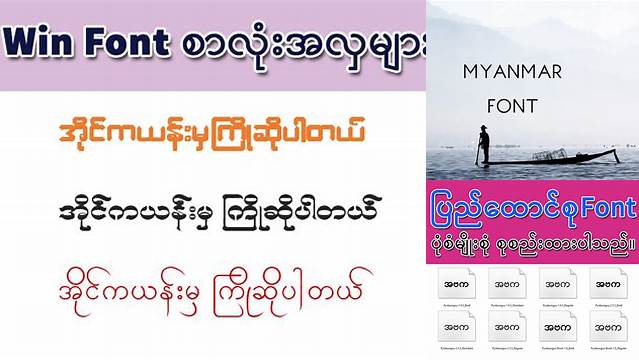
Myanmar Fonts For PC: Free Downloads
Hey guys! So you're looking to get some cool Myanmar fonts installed on your PC, and you want to do it for free? You've come to the right place! Downloading and installing Myanmar fonts on your computer can open up a whole new world of typing and design possibilities. Whether you're working on a document, creating some awesome graphics, or just want to chat with friends in your native script, having the right fonts makes all the difference. Let's dive into how you can find and get these fonts without spending a dime.
Understanding Myanmar Fonts and Their Importance
First off, what exactly are Myanmar fonts, and why are they so crucial for PC users? Myanmar, also known as Burma, has its own unique and beautiful script. However, standard computer operating systems often don't come with these specific fonts pre-installed. This means if you try to type in Burmese on a regular PC, you might see a bunch of jumbled characters or squares instead of the intended letters. It's super frustrating, right? This is where Myanmar fonts come in. They are specialized character sets designed to correctly render the Burmese alphabet on digital devices. Having these fonts installed ensures that your text appears as intended, making communication clear and preserving the visual integrity of the language. For anyone communicating in or about Myanmar, whether for business, personal use, or cultural preservation, having accessible and correct fonts is non-negotiable. They are the backbone of digital literacy and expression for the Burmese language. Without them, interacting with Burmese content online or creating content in Burmese becomes a significant hurdle. So, finding reliable sources for free downloads is key to unlocking this digital capability.
Exploring Different Types of Myanmar Fonts
When you start looking for Myanmar fonts, you'll quickly realize there isn't just one type. There are several different font families and encoding systems that have been developed over the years. Some of the most common ones you'll encounter are Zawgyi, MyMyanmar, and Padauk. Zawgyi has been around for a while and is widely used, though it has some historical encoding quirks. MyMyanmar is another popular choice, often designed for better compatibility and ease of use. Padauk is a more modern Unicode-compliant font that's gaining traction, especially for web use and cross-platform compatibility. Understanding these differences is important because a document typed in Zawgyi might not display correctly if someone views it on a system that only has MyMyanmar installed, and vice-versa, unless the system is specifically set up to handle them. Each font has its own aesthetic, too β some might be more traditional, while others offer a more contemporary look. When you're downloading free fonts, pay attention to which encoding system they use. This will save you a lot of headaches down the line, especially if you're collaborating with others or need your text to be universally readable. Itβs all about finding the right fit for your specific needs and ensuring your Burmese text looks exactly how you want it to.
Where to Find Free Myanmar Fonts Online
Tips for Choosing the Right Myanmar Font
With so many options out there, how do you pick the perfect Myanmar font for your PC? It really depends on what you'll be using it for. If you're writing casual messages to friends or posting on social media, you might prefer a font that's trendy and easy to read. For more formal documents, like academic papers or official correspondence, you'll want something that looks professional and adheres to established Burmese typographic standards. Consider the readability factor β some fonts are designed with clarity in mind, ensuring that each character is distinct and legible even at smaller sizes. If you're working on graphic design projects, you might look for fonts with unique styles or decorative elements that can add flair to your creations. Also, think about compatibility. If you share your work with others, especially online, choosing a Unicode-compliant font like Padauk is often the best bet, as it ensures your text will display correctly on most modern devices and platforms. Don't be afraid to download a few different options and try them out. See how they look in different applications and contexts. What looks good on one screen might not be ideal for another. Ultimately, the best font is the one that best serves your purpose and appeals to your aesthetic sense.
Step-by-Step Installation Guide for Windows Users
Let's break down the installation process into easy steps, guys. You've got your font file, say Zawgyi-One.ttf
. First, locate the file in your Downloads folder or wherever you saved it. Double-click Zawgyi-One.ttf
. A window will pop up showing you what the font looks like. See that button that says "Install"? Yep, just click that bad boy. Windows will then install the font. You'll see a progress bar, and then it's done. Boom! If you want to install multiple fonts at once, you can open the Fonts folder manually. Go to C:\Windows\Fonts
in File Explorer. Then, drag and drop all the .ttf or .otf files you want to install directly into this folder. Windows will automatically recognize and install them. It's that simple. For those of you rocking Windows 10 or 11 and wanting the font available for all users on the PC, right-click the font file and select "Install for all users." This is the best practice if you're the administrator. Once installed, open your word processor or design software. You should now be able to find your newly installed Myanmar font in the font dropdown menu. If it's not there, try closing and reopening the application. Sometimes a full system reboot is needed, but usually, an application restart is enough.
Verifying Your Myanmar Font Installation
So, how do you know if that Myanmar font you just installed is actually working correctly? The best way is to open up an application where you'll use it β think Microsoft Word, Google Docs, or even a graphics editor like Photoshop or GIMP. Once the application is open, go to the font selection menu. Scroll through the list and look for the name of the font you just installed. It should be there! Select it. Now, try typing something in Burmese. If the characters appear correctly and look like the script you expect, congratulations, your font is installed and working perfectly! If you're still seeing those dreaded squares or jumbled characters, something might have gone wrong. Double-check that you installed the correct font file and that it's compatible with your operating system. You might need to try installing it again, or perhaps try a different font altogether. Sometimes, especially with older fonts or specific encoding types, you might need specific software or settings enabled. But usually, a successful installation means you'll see those beautiful Burmese characters pop up as you type.
Troubleshooting Common Font Installation Issues
What if things don't go smoothly, guys? It happens! One common issue is the font not appearing in the application's font list even after installation. Usually, this is resolved by simply restarting the application. If that doesn't work, try restarting your entire computer. Another problem can be corrupted font files. If a font fails to install or looks weird after installation, try re-downloading it from a different source, assuming you've verified the source is reputable. Make sure you're downloading the correct file type (.ttf or .otf); sometimes, people mistakenly download programs that use fonts rather than the font files themselves. If you're having trouble with a specific Myanmar font, search online for its name along with "installation problems" or "troubleshooting." You might find forums or support pages where others have encountered and solved similar issues. Ensure your operating system is up to date, as older systems might have compatibility issues with newer font formats or encodings. And remember, different applications might handle fonts slightly differently, so testing in multiple programs can help diagnose the problem.
Understanding Font Encodings: Zawgyi vs. Unicode
This is a big one, especially with Myanmar fonts: understanding the difference between Zawgyi and Unicode. Zawgyi is an older, proprietary encoding system that was very popular for a long time. It works well on its own but can cause problems when interacting with systems that use standard Unicode. If you type in Zawgyi and send it to someone who doesn't have Zawgyi installed (or vice-versa), the text might appear as gibberish. Unicode, on the other hand, is the modern, universal standard for encoding text. Fonts like Padauk are Unicode-compliant. This means that text typed using a Unicode font should display correctly on almost any modern device or operating system, regardless of whether they have a specific Myanmar font installed, as long as the OS supports Unicode. For most new projects, especially anything intended for web use or broad sharing, using Unicode fonts is highly recommended. It ensures maximum compatibility and future-proofing. While Zawgyi fonts are still around and might be necessary for accessing older content, embracing Unicode is the way forward for seamless communication.
Downloading and Installing Myanmar Fonts on macOS
So, you're a Mac user? Awesome! Getting Myanmar fonts onto your MacBook or iMac is just as easy, if not easier, than on Windows. Apple's Font Book application is super user-friendly and handles font management like a champ. Once you've downloaded your free Myanmar font files (again, look for .ttf or .otf), the installation process is a breeze. You're basically just telling your Mac to recognize these new fonts. Whether you're working on a Pages document or a graphic design project in Affinity Designer, having these fonts available will make your Burmese typing experience smooth and enjoyable. Let's walk through how to get them set up on your Mac.
Step-by-Step Installation Guide for Mac Users
Mac users, listen up! It's time to get those Myanmar fonts installed. First, find the font file you downloaded β let's say it's MyMyanmar-Regular.ttf
. Double-click the file. This action will automatically open the Font Book application, showing you a preview of the font. At the top of the preview window, you'll see a button labeled "Install Font." Just give that a click. Font Book will then validate the font and install it into your system. It's usually that simple! If you want to install multiple fonts, you can select them all in Finder, then double-click one of them, and Font Book will open showing previews for all the selected fonts. You can then click "Install Font" for each, or if they don't conflict, it might install them all at once. Alternatively, you can open Font Book directly (you can find it in your Applications folder or search using Spotlight). Then, you can drag and drop your downloaded font files (.ttf or .otf) directly into the Font Book window. Your Mac will handle the installation. After installation, open the application you need (like Pages, Word, or Keynote), and your new Myanmar font should appear in the font list, ready for you to use.
Verifying Your Myanmar Font Installation on Mac
Done installing? Now let's make sure it's working, guys! On your Mac, open up an application like Pages, Microsoft Word for Mac, or even TextEdit. Navigate to the font menu β usually found under the "Format" or "Edit" menu, or sometimes accessible via a toolbar icon. Look for the name of the Myanmar font you just installed. If it's there, select it. Now, try typing in Burmese. If the characters render correctly, you're golden! Your Myanmar font is successfully installed and ready to go. If you encounter issues, like seeing squares or strange symbols, double-check that the font file wasn't corrupted during download. You can try re-downloading the font from a trusted source. Also, ensure you installed it correctly via Font Book. Sometimes, closing and reopening the application is enough to refresh the font list. If problems persist, you might need to check if the font is compatible with your macOS version or consider if it uses an older encoding that might require specific handling.
Troubleshooting Common Font Installation Issues on Mac
Mac users sometimes run into snags too, and that's totally normal. If a font you installed doesn't show up in your applications, the first thing to try is quitting and relaunching the application. Sometimes, a full system restart might be necessary, though it's less common than on Windows. If Font Book reports an error when you try to install a font, it could mean the font file is damaged or incompatible. In this case, try downloading the font again from a different, reputable source. You can also use Font Book's built-in validation tools; open Font Book, select the font, and go to File > Validate Font. It will alert you to any serious issues. Conflicting font names can also cause problems β if you have multiple versions of a font installed, or fonts with very similar names, it can confuse the system. Font Book usually helps manage this, but sometimes manual conflict resolution is needed. If you're consistently having trouble with a specific font, searching online forums for that font name plus "mac font problem" might yield solutions from other users.
Exploring Advanced Font Management with Font Book
For Mac users, Font Book is your central hub for all things fonts. Itβs not just for installing; itβs for organizing and managing your entire font library. Once your Myanmar fonts are installed, you can use Font Book to create collections β think of them as folders for grouping related fonts, like "Myanmar Unicode Fonts" or "Zawgyi Fonts." This is super handy for keeping your font menu tidy, especially if you have a lot of fonts installed. You can also resolve duplicate fonts, disable fonts you aren't using (to speed up application launch times), and preview fonts easily. To access advanced options, simply open Font Book. You can disable fonts by selecting them and clicking the checkbox or using the disable option in the Edit menu. Creating collections is done via the File menu. Exploring these features can really help you maintain a clean and efficient font system on your Mac, making it easier to find and use your Myanmar fonts when you need them.
Popular Free Myanmar Font Resources
Okay, let's get practical. Where can you actually go to grab these free Myanmar fonts? We've talked about the types and how to install them, but reliable sources are key. Several websites have become go-to places for downloading Burmese fonts. These often include community-driven sites, language resource hubs, and font repositories. Some sites focus specifically on providing Unicode-compliant fonts, which is great for modern usage, while others might still host older, popular fonts like Zawgyi. It's important to stick to well-known and trusted resources to ensure the safety and quality of your downloads. We'll highlight a few types of places you should look, keeping in mind that the landscape of free font sites can change. Always prioritize sites that are frequently updated and have positive user feedback. Let's find you some awesome fonts without the hassle.
Recommended Websites for Zawgyi Fonts
If you're specifically looking for Zawgyi fonts, there are a few places that are generally known to host them. Many Myanmar-focused blogs and forums often link directly to download locations or share Zawgyi font packages. Search engines are your friend here β try queries like "download Zawgyi font free" or "Zawgyi font package." You might land on sites that are essentially archives of popular Myanmar fonts. Some educational institutions or cultural organizations focused on Myanmar may also provide these resources on their websites, often as part of language learning tools. Be mindful that Zawgyi is an older encoding, so ensure the site you're using is still active and the downloads are clean. Sites that have been around for a while and are frequently mentioned in discussions about Myanmar computing are usually a safe bet. Just remember to scan any downloaded files, as with any free download.
Recommended Websites for Unicode Myanmar Fonts
For those looking for modern, Unicode-compliant Myanmar fonts like Padauk or others designed for better compatibility, your search might lead you to slightly different places. Google Fonts is an excellent starting point for free, high-quality, open-source fonts, and they often include various Indic and Southeast Asian scripts, so it's worth checking there regularly. Many typography blogs and font foundries that support open-source initiatives also offer Unicode Myanmar fonts. Websites dedicated to promoting the Burmese language online or digital inclusion initiatives are also great resources. Searching for "free Myanmar Unicode fonts" or "open source Burmese fonts" should guide you. These sources often provide fonts that are not only free but also professionally designed and well-maintained, ensuring they work seamlessly across different platforms and applications. Prioritize these resources for new projects.
Exploring Community Forums and Blogs
Community forums and blogs dedicated to Myanmar language and culture are treasure troves for free font downloads. Users often share links to their favorite fonts, discuss installation issues, and recommend reliable download sources. Platforms like Reddit (search for relevant Myanmar or Burmese subreddits), or specialized forums focusing on Southeast Asian languages, can be incredibly helpful. Many Myanmar bloggers also maintain lists of useful software and resources, including font collections. When you find a blog or forum post discussing fonts, pay attention to the comments section β other users might offer alternative download links or confirm the legitimacy of the provided ones. These community spaces are invaluable because they offer insights from actual users, helping you navigate the often-complex world of font sourcing. Just remember the usual safety precautions: scan downloads and be wary of suspicious links.
Utilizing Language Learning Platforms
Language learning platforms, especially those focused on Burmese or related languages, are often great places to find resources, including fonts. Websites designed to help people learn the Burmese language might offer downloadable fonts as part of their curriculum or as supplementary materials. These are typically chosen for their clarity and compatibility, making them good candidates for general use. Search for "Burmese language learning resources" or "Myanmar language software." Sometimes, these platforms will provide direct download links or explain which fonts are recommended for learners. The fonts offered through educational contexts are usually vetted and safe to download, making them a reliable option if you're unsure about other sources. It's a win-win: you can find essential typing tools while also potentially discovering great places to learn the language itself.
The Advantages of Using Unicode Myanmar Fonts
Guys, let's talk about why making the switch to Unicode Myanmar fonts is a really smart move for pretty much everyone. While older fonts like Zawgyi served their purpose, Unicode is the global standard for a reason. It's designed for universal compatibility, meaning text typed using a Unicode font should display correctly on virtually any modern device or platform β be it your PC, your smartphone, a website, or an app. This solves a massive headache related to inconsistent display across different systems. Imagine sharing a document or a message, and knowing it will look the same for everyone, no matter what device they're using. That's the power of Unicode. It ensures that the integrity and meaning of the Burmese language are preserved in digital communication. Plus, search engines and other digital tools can better understand and index Unicode text, which is crucial for online content and accessibility.
Ensuring Cross-Platform Compatibility
One of the biggest wins with Unicode Myanmar fonts is guaranteed cross-platform compatibility. Remember the old days when a font looked perfect on your computer but turned into a mess on someone else's? Unicode largely eliminates that problem. Whether someone is viewing your text on Windows, macOS, Linux, Android, or iOS, if they have basic Unicode support (which all modern systems do), your Burmese text should render correctly, provided they have a Unicode font that supports the script. Even if they don't have a specific Myanmar font installed, many operating systems have fallback fonts that can display Unicode characters. This is a game-changer for collaboration, sharing documents, and creating web content. You can be confident that your message is being received exactly as you intended it, without worrying about font conflicts or rendering errors. It makes digital communication in Burmese so much smoother and more reliable for everyone involved.
Improving Search Engine Discoverability
For anyone creating content in Burmese β whether it's a blog post, a website, or even just social media updates β using Unicode fonts significantly boosts your content's discoverability by search engines like Google. Search engines work by crawling and indexing text on the web. When you use Unicode, the characters are standardized and recognized universally. This means search engines can accurately read, understand, and categorize your content. If you use older, non-standard encodings like Zawgyi, search engines might struggle to interpret the characters correctly, potentially leading to your content not appearing in relevant search results. By adopting Unicode, you're making your Burmese-language content more accessible to a wider audience and ensuring it can be found by people actively searching for information in your language. It's a crucial step for online presence and effective communication in the digital age.
Enhancing Accessibility for All Users
Accessibility is a cornerstone of modern digital design, and using Unicode for Myanmar fonts plays a vital role in making digital content accessible to everyone. Unicode ensures that characters are represented consistently, which is essential for assistive technologies like screen readers used by visually impaired individuals. Screen readers rely on standardized character encoding to accurately interpret and vocalize text. When non-standard encodings are used, these tools may fail to read the text correctly, rendering the content inaccessible. Furthermore, Unicode support often goes hand-in-hand with better font scaling and rendering options, which benefit users with various visual needs. By choosing Unicode-compliant Myanmar fonts, you're not just typing; you're actively contributing to a more inclusive and accessible digital world for all Burmese speakers.
Future-Proofing Your Myanmar Content
Choosing Unicode Myanmar fonts is like investing in the future of digital communication. As technology evolves, standards tend to consolidate, and Unicode is firmly established as the global standard for text encoding. By using Unicode now, you ensure that the content you create today will remain compatible and readable for years to come. Migrating older content from non-standard encodings to Unicode can be a laborious process. Starting with Unicode from the beginning saves you that future trouble. It means your documents, websites, and digital archives are less likely to become obsolete or unreadable as systems and software update. This forward-thinking approach is particularly important for organizations, archives, and individuals committed to preserving Burmese language and culture digitally. Embracing Unicode is embracing longevity and ensuring your digital legacy remains intact.
Tips for Organizing Your Font Library
Once you've downloaded a bunch of cool free Myanmar fonts, the next logical step, guys, is to keep them organized! A messy font library can quickly become overwhelming, making it hard to find the specific font you need when you're in the middle of a project. Think of it like tidying up your closet β it's much easier to find that perfect shirt when everything is neatly arranged. Having a well-organized font library saves you time, reduces frustration, and helps you make the most of the resources you've gathered. We'll go over some simple strategies that you can implement right away to keep your font collection manageable and accessible. This way, you can spend less time searching and more time creating awesome stuff with your new fonts.